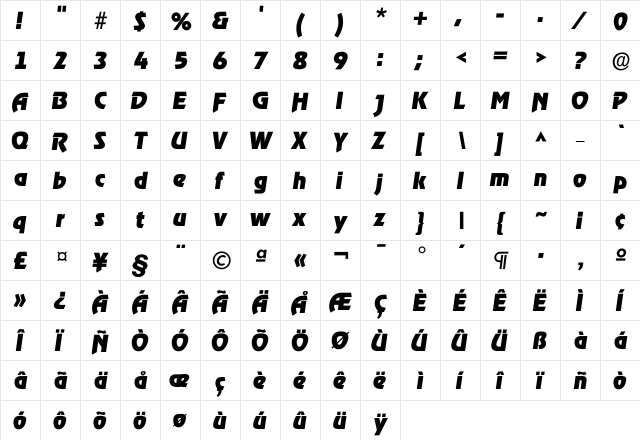
Iragtime ExtraBold Font Preview
Iragtime ExtraBold
Design Context for Iragtime Typeface
Iragtime offers clean, dependable letterforms without strong stylistic allegiance, making it a practical choice for designers who need flexibility. The heavy weight commands attention and anchors typographic hierarchies.